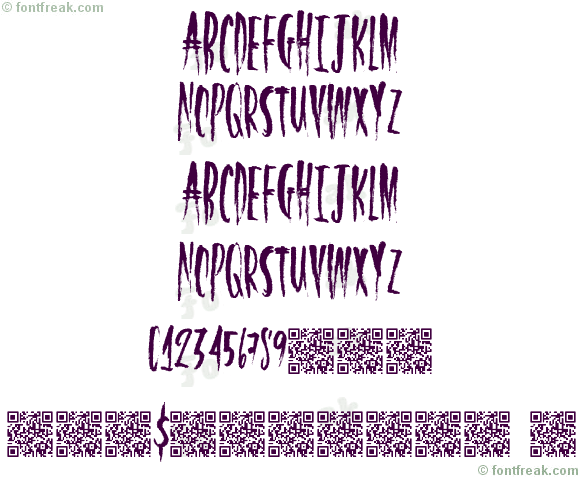
HalfLight
HalfLight by Xerographer Fonts is a captivating display font that masterfully combines elements of both artistry and readability. This unique font is characterized by its striking, irregular strokes that evoke a sense of magic and beauty, making it an ideal choice for projects that require a touch of whimsy. The varying stroke weights and organic forms contribute to a dramatic contrast, giving the font a dynamic appearance that draws the eye. The spacing is carefully designed to enhance legibility while maintaining an artistic flair, ensuring that messages stand out with an enchanting presence.
This font excels in various applications, making it a versatile choice for designers and creators. It is particularly well-suited for wedding invitations, where its romantic style can set the perfect tone for a special day. Additionally, HalfLight adds a distinctive touch to movie posters, capturing the imagination of potential viewers with its creative flair. Restaurant menus can also benefit from this font, as it lends an artistic charm that enhances the dining experience. Furthermore, it serves as an excellent choice for branding projects, allowing small business owners to convey a unique identity.